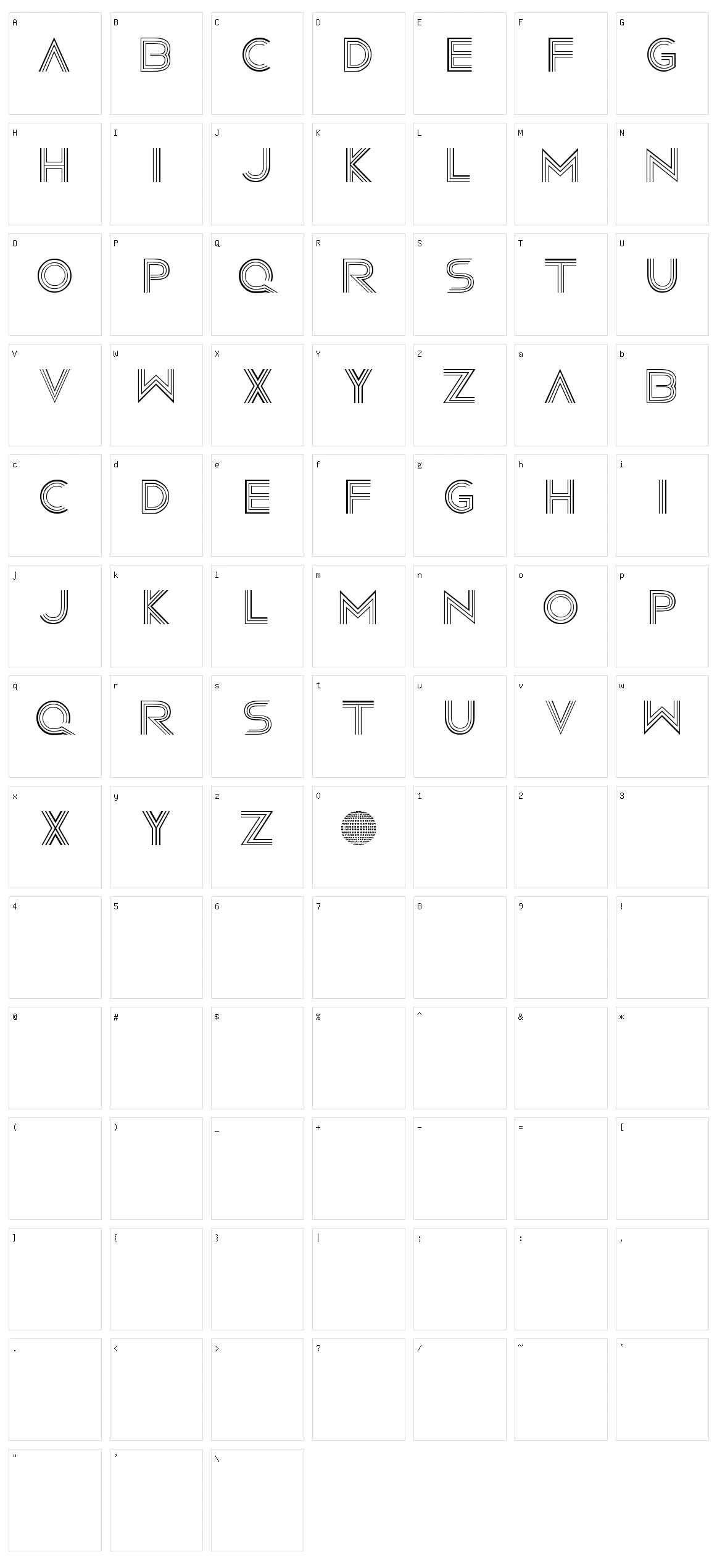
Confusions on a Dancefloor.
Font Created by Romulo Genova.
Caracters:
A B C D E F G H I J K L M N O P Q R S T U V W X Y Z Ç 0 a b c d e f g h i j k l m n o p q r s t u v w x y z ç